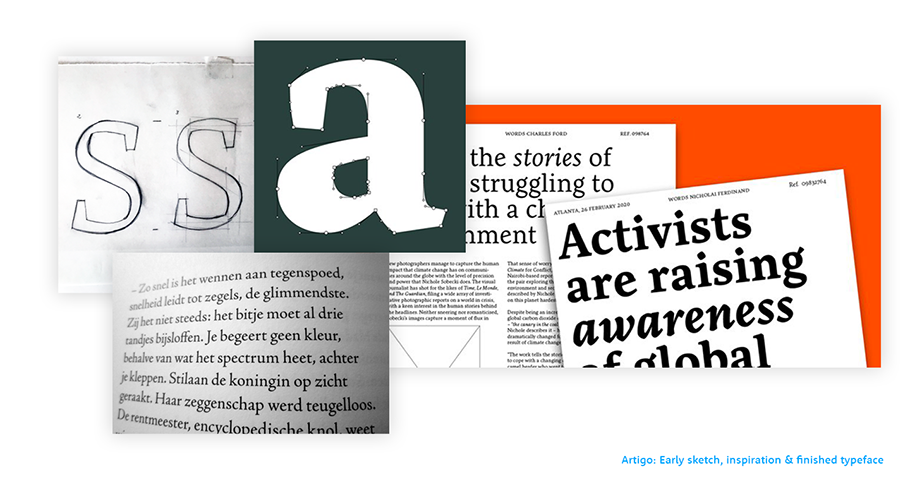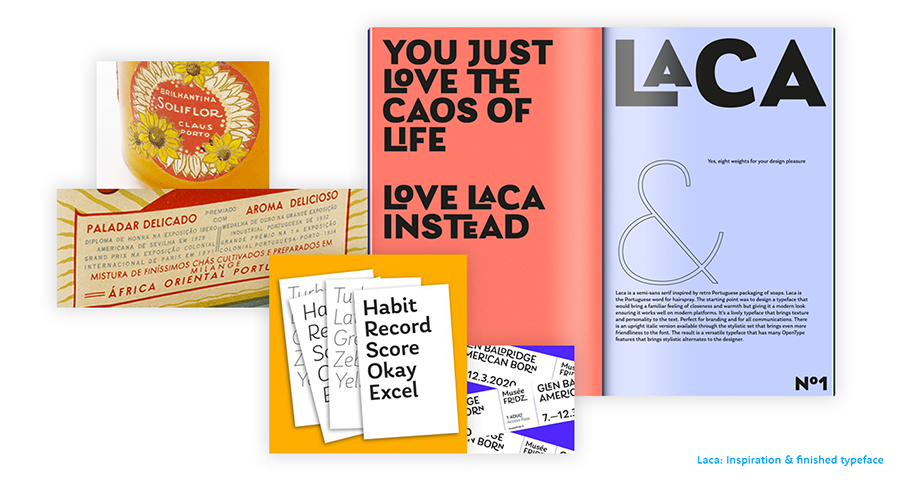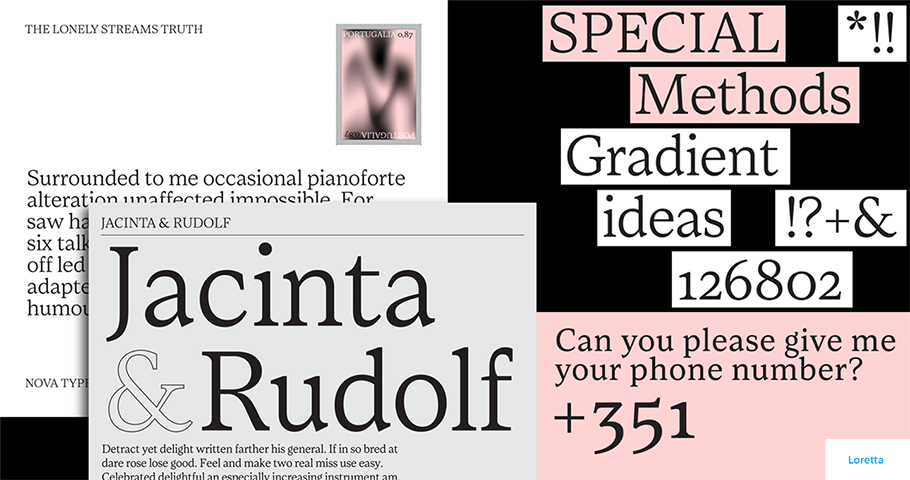
Creative Characters: Up and coming — Joana Correia
Born in Porto, Portugal, an ancient seaside city where she was classically trained as an architect before entering the field of type design, Joana Correia has enjoyed a 20-year career shaped by her twin drives to learn from the old while creating something new.
It was thanks to her first trade that she stumbled across the second. Correia discovered typography while organizing architectural exhibitions and creating lettered signs to explain the drawings. “I started to understand that I prefer this kind of innovative work to the more established practice of designing buildings, to architecture itself,” she said.
Today, her interest in tradition versus innovation, among other dualities, continues. In a recent Zoom interview, we discussed her penchant for intertwining the classic with the current, how she’s combining art with commerce, and why she considers herself outgoing, even as she spends most of her time happily working alone from home. (Our conversation has been condensed for clarity.)
MyFonts: First, tell me about your hometown of Porto. What is it like?
Joana Correia: It has a lovely old city feel. It can look cold and gray in the winter, because it’s all granite. But then, in the spring, it’s beautiful, with lots of color. Porto’s bordered by the Atlantic Ocean and Rio Douro. The river’s quite tight; you can see both its banks. That creates a dramatic feeling. Meanwhile, the ocean spreads out your eyes, opening you to the outside. I think that’s reflected in Porto’s residents: we are like the city, with its strong stone buildings, but then like the sea, we are also very open to foreigners and visitors.
MF: Has living there influenced your design work?
JC: Yes, some of my typefaces reflect Porto’s history, including its occupation by the Romans. For example, my Artigo typeface, a text font, was influenced by the first Roman types. It drew on the same roughness and style we see in fonts like Granjon and Jenson. But that was just the inspiration — because Artigo doesn’t attempt to be a revival. It’s rooted in classicism, but its shapes are intuitional, growing from the design.
MF: Has Porto, in its more contemporary form, similarly influenced your work?
JC: Yes. My font Laca pays tribute to an Art Deco advertising style that was broadly popular in the 1950s and ‘60s and used for items ranging from signs to soap wrappers. (There’s a large soap-making industry in Porto.) The style found its way here via French designers like Roger Excoffon, one of my favorites. You can see it in the antique shops sometimes. It was the first sans serif used in this kind of packaging. Both it and Laca pair using more expressive fonts with trying to keep the lettering clean enough to read. So Laca (“hairspray,” in Portuguese) is a bit like a retro font, but it doesn’t nod at the old, old like Artigo.
MF: I’m intrigued by how often you pair the antique with the novel — or otherwise explore seeming opposites. For instance, even now, as you’re artfully designing fonts for clients like Google, you’re also working to earn your MBA. May I ask where — and why?
JC: Porto Business School. It’s a crazy thing to do as a creative person! Not only does it involve learning business skills like leadership, but also compels you to study finance and marketing. It’s very far from type design. It’s mostly focused on digital innovation, e-commerce, artificial intelligence: all those things that are super important right now.
MF: Sounds as if you’re staying current, even if the skills that you’re building aren’t immediately connected to typography. But what do you feel you’ve learned from B-school?
I learned I was better in accounting than I thought I was! Also, we just did the Myers-Briggs personality test. I don’t know the results yet, but I’m curious. I always thought I was a bit more outgoing, but it seems I’m also introverted. I definitely see that I’m the creative type, and everyone else in the program, they think in numbers. Me, I think in terms of process. So I have some skills they don’t.
Ultimately, I do think the program will help with my design thinking. I’m trying to think in more disruptive ways.
MF: Here’s a business school question: where do you see yourself in five years?
JC: I hope I have a bigger library. I’m finishing up one font this year and I want to design more. As for the solitude of working from home: it will probably continue.
MF: Can you share the mechanics of how you do your design work?
JC: I don’t do many hand sketches on paper instead, I use GlyphsApp to design fonts, so much of my sketching is done using this app that’s special to designing typefaces.
MF: What makes digital designing superior for you?
JC: Designing directly on the screen and using the app makes it faster to test whether the design works well or not. I can type words with the letters that I engineer, and because what I’m doing is creating a fully functioning font, it’s great to test it in the early phases, to try out the concept.
As for the GlypsApp: it makes it very intuitive to design using Bézier curves and then easy to test and write with just a few letters, helping to create the system of a font.
Loretta - a future font by Joana Correia
MF: When you consider your future, one that brings together both your business and your creative efforts, what do you hope it holds for you?
JC: I hope I’ll continue doing everything I’m doing now, only more of it! This process of creating will continue.